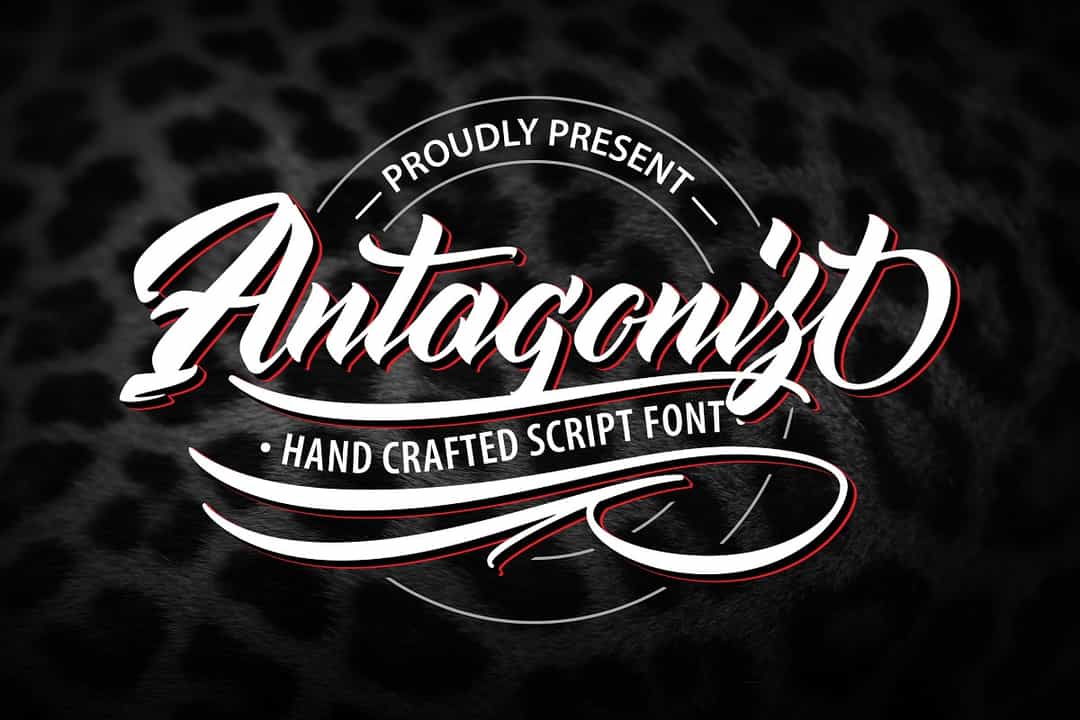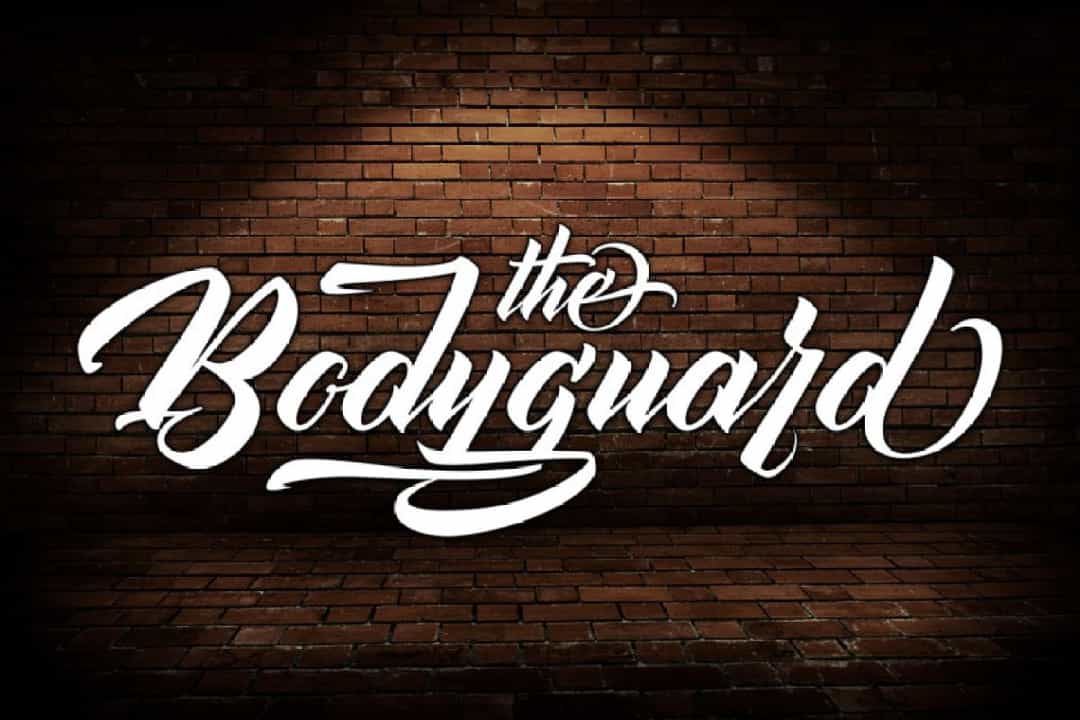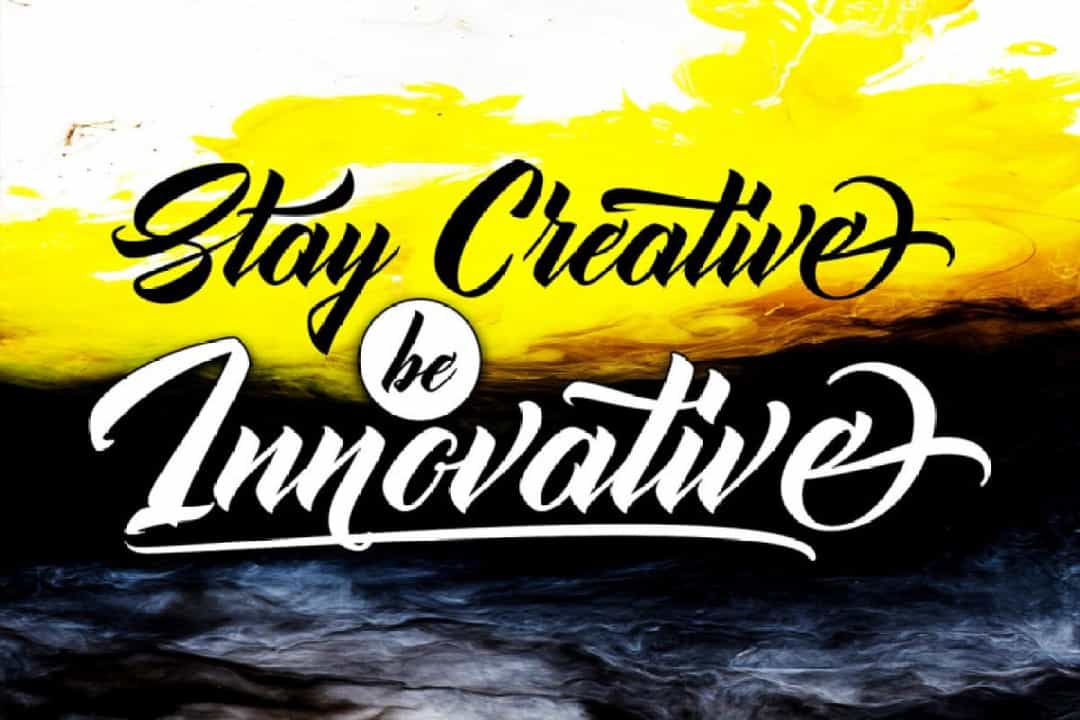
Antagonist is a fresh script font with round characteristics giving a classy, current, natural and stylish look. This font is suitable for logos, branding of magazines and posters, stationery designs business cards among other uses, Antagonist is quite effective when used appropriately.